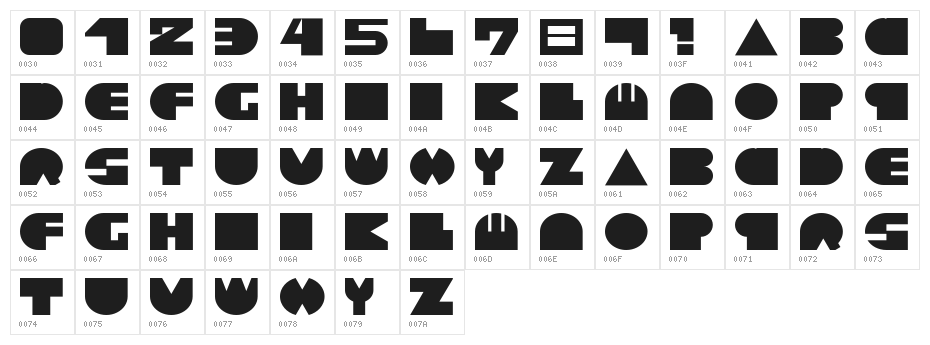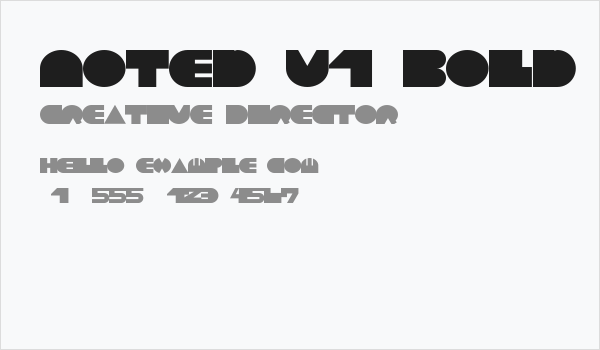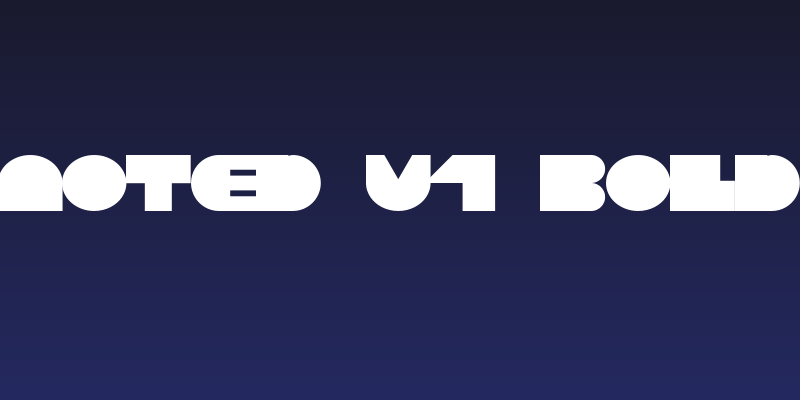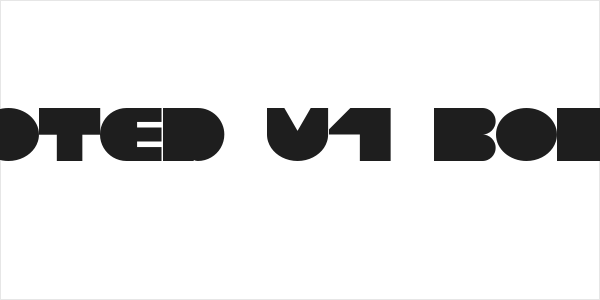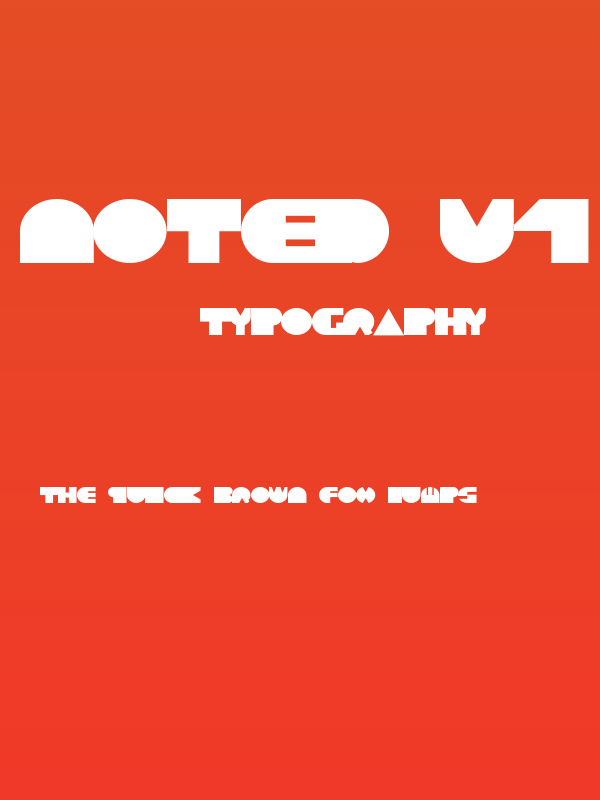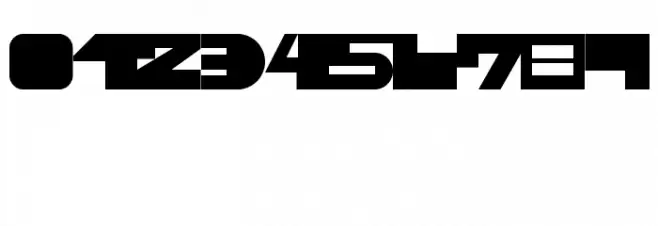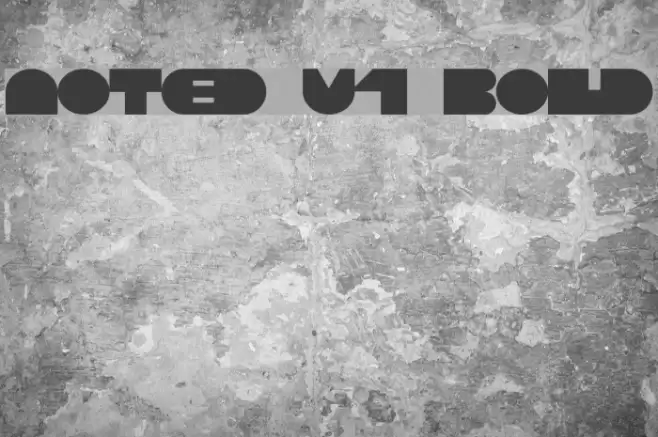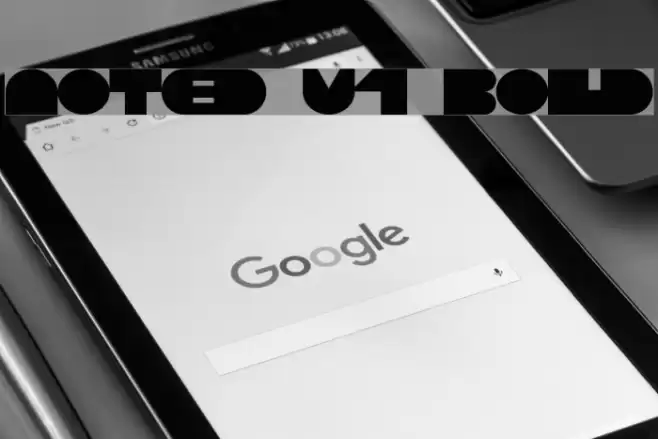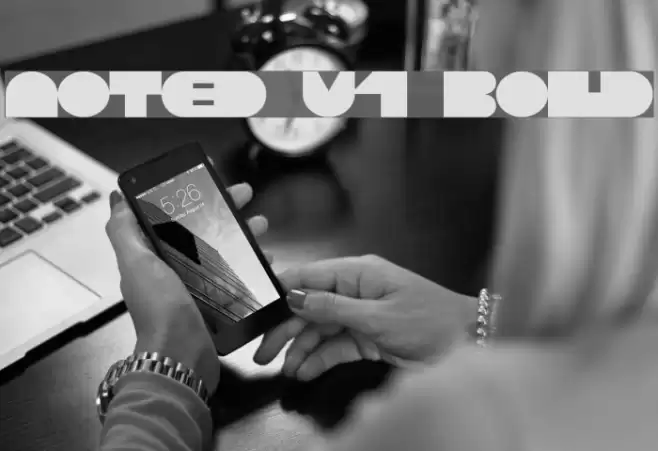
Noted V1 Bold Font
Noted V1 Bold Description
This font features a bold and geometric design, characterized by its thick, block-like letters with sharp angles and straight lines. The uppercase and lowercase letters maintain a consistent width, creating a uniform appearance. The numbers and special characters are equally bold, with a distinctive modern flair. The font's overall aesthetic is futuristic and industrial, making it stand out in any design. Its unique style is perfect for projects that require a strong visual impact.
| Proposed Projects | Ideal for branding, posters, headlines, and any design that needs a modern, impactful look. |